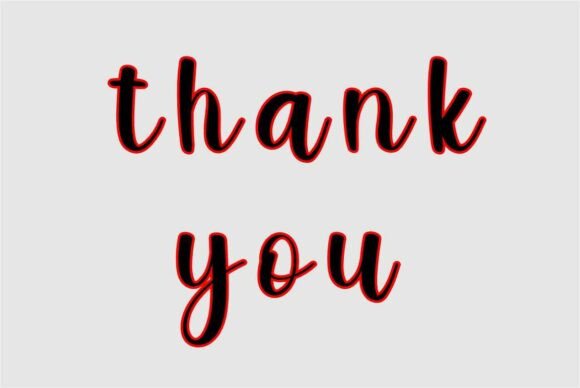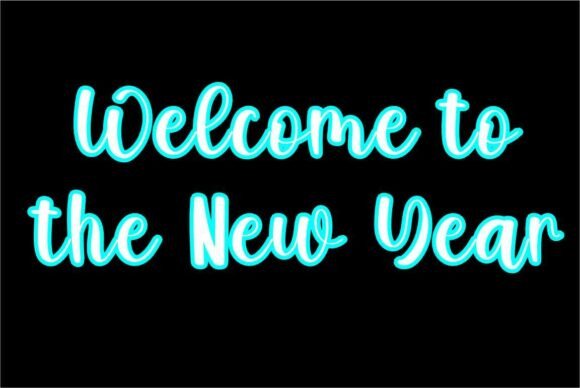
Happy New Year Font: Add a Festive Touch to Your Designs
As the clock strikes midnight on New Year’s Eve, the world welcomes a fresh start with open arms. What better way to capture the essence of this joyous occasion than with a beautiful, festive font? Introducing the HAPPY NEW YEAR – Festive Script Font, a stunning script font designed to bring a cheerful and welcoming feel to your New Year designs.
A Festive and Elegant Script Font
The HAPPY NEW YEAR font is a masterpiece of elegant script typography, perfect for designers, crafters, and creators who want to add a personal touch to their New Year-themed designs. With smooth curves and a flowing handwritten style, this font exudes warmth and celebration, making it ideal for a wide range of applications.
Perfect for New Year Designs
Whether you’re creating New Year greetings, holiday cards, invitations, posters, social media posts, party decorations, packaging, or seasonal branding, the HAPPY NEW YEAR font is the perfect choice. Its stylish handwritten look adds a touch of sophistication and whimsy, making your messages stand out beautifully.
Key Features of HAPPY NEW YEAR Font
- Festive and elegant script font: Perfect for New Year designs, holiday cards, and party decorations.
- Smooth curves and flowing handwritten style: Adds a cheerful and welcoming feel to any design.
- Personal and joyful touch: Makes your messages stand out beautifully.
- Wide range of applications: Suitable for designers, crafters, and creators who want to create eye-catching New Year-themed designs.
Use Cases for HAPPY NEW YEAR Font
The HAPPY NEW YEAR font is versatile and can be used in various design projects, including:
- New Year greetings: Create stunning greeting cards, posters, and social media posts.
- Holiday cards: Add a personal touch to your Christmas, Hanukkah, or New Year’s Eve cards.
- Invitations: Design beautiful invitations for New Year’s Eve parties, gatherings, or events.
- Posters and flyers: Create eye-catching posters and flyers for New Year-themed events.
- Social media posts: Add a festive touch to your social media posts and stories.
- Party decorations: Use the font to create stunning party decorations, such as banners, garlands, and signs.
- Packaging and branding: Add a personal touch to your New Year-themed packaging and branding.
Why Choose HAPPY NEW YEAR Font?
With the HAPPY NEW YEAR font, you can:
- Add a personal touch: Make your designs more personal and engaging.
- Stand out: Create unique and eye-catching designs that stand out from the crowd.
The HAPPY NEW YEAR – Festive Script Font is a beautiful and elegant font designed to capture the joy and celebration of the New Year season. With its smooth curves and flowing handwritten style, this font is perfect for designers, crafters, and creators who want to add a personal touch to their New Year-themed designs. Whether you’re creating greeting cards, posters, social media posts, or party decorations, the HAPPY NEW YEAR font is the perfect choice.